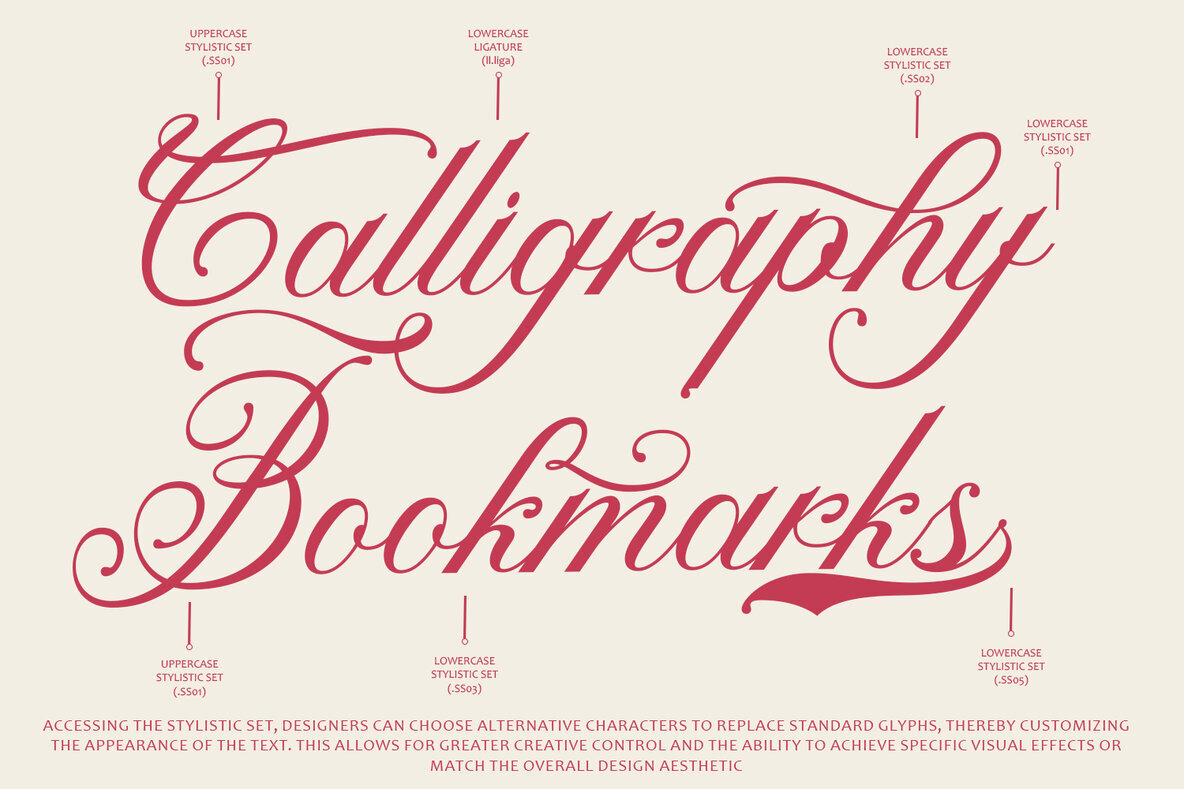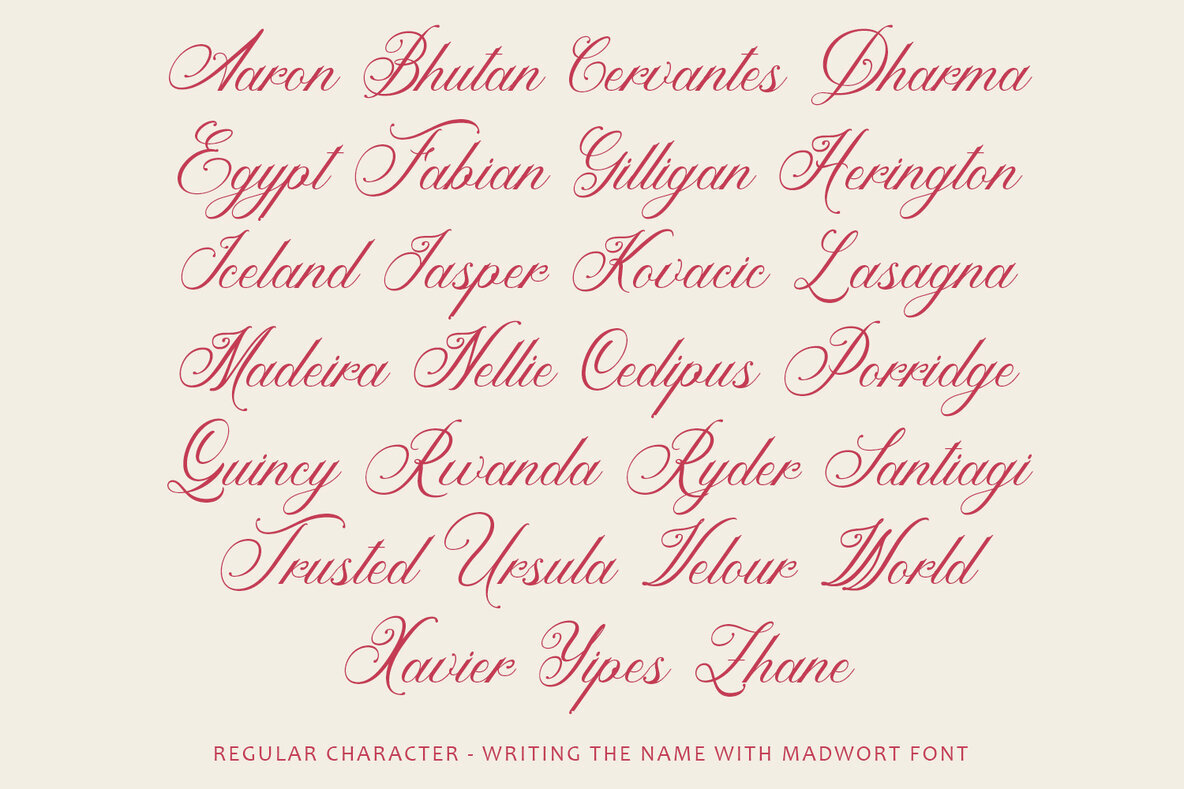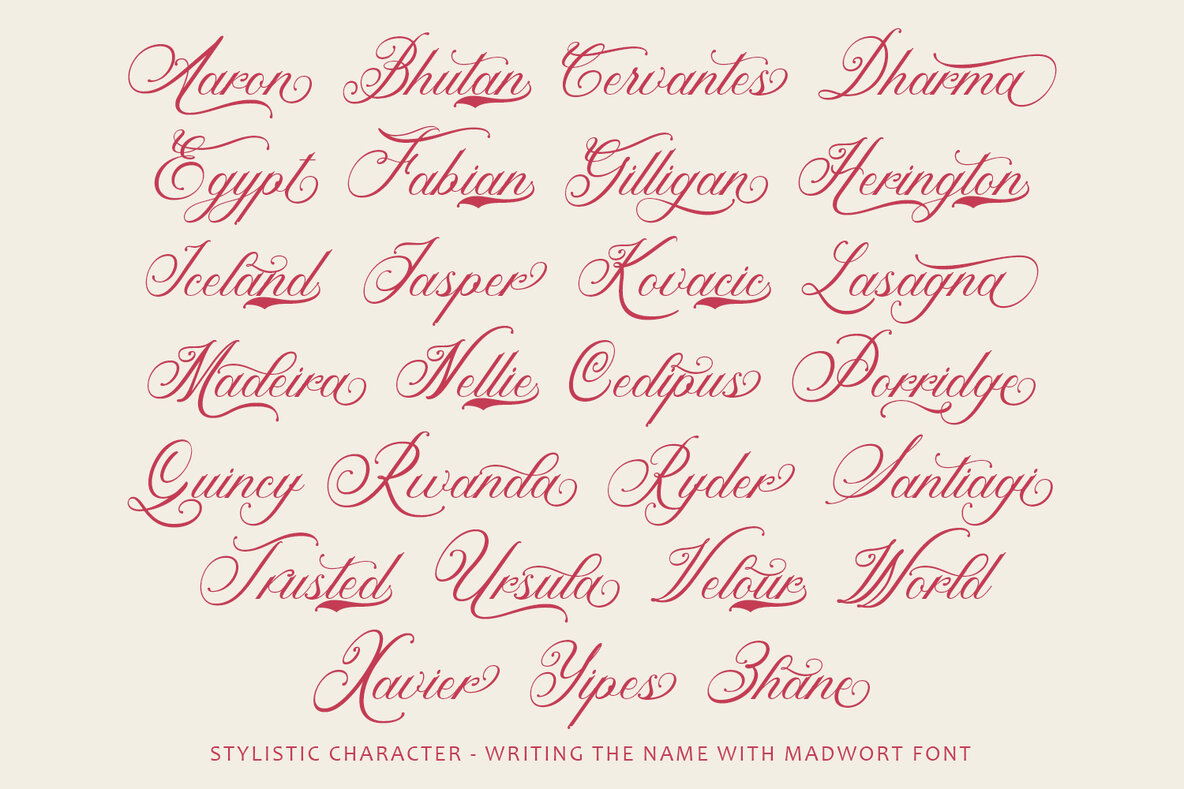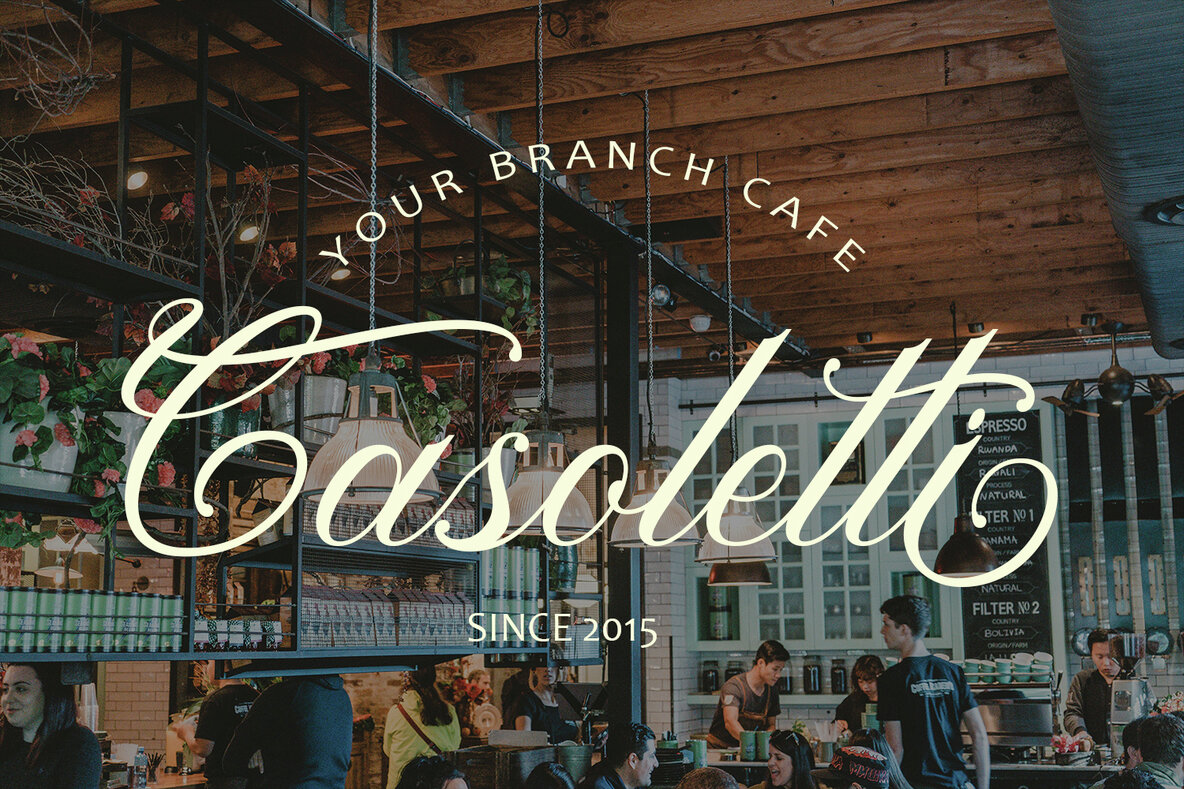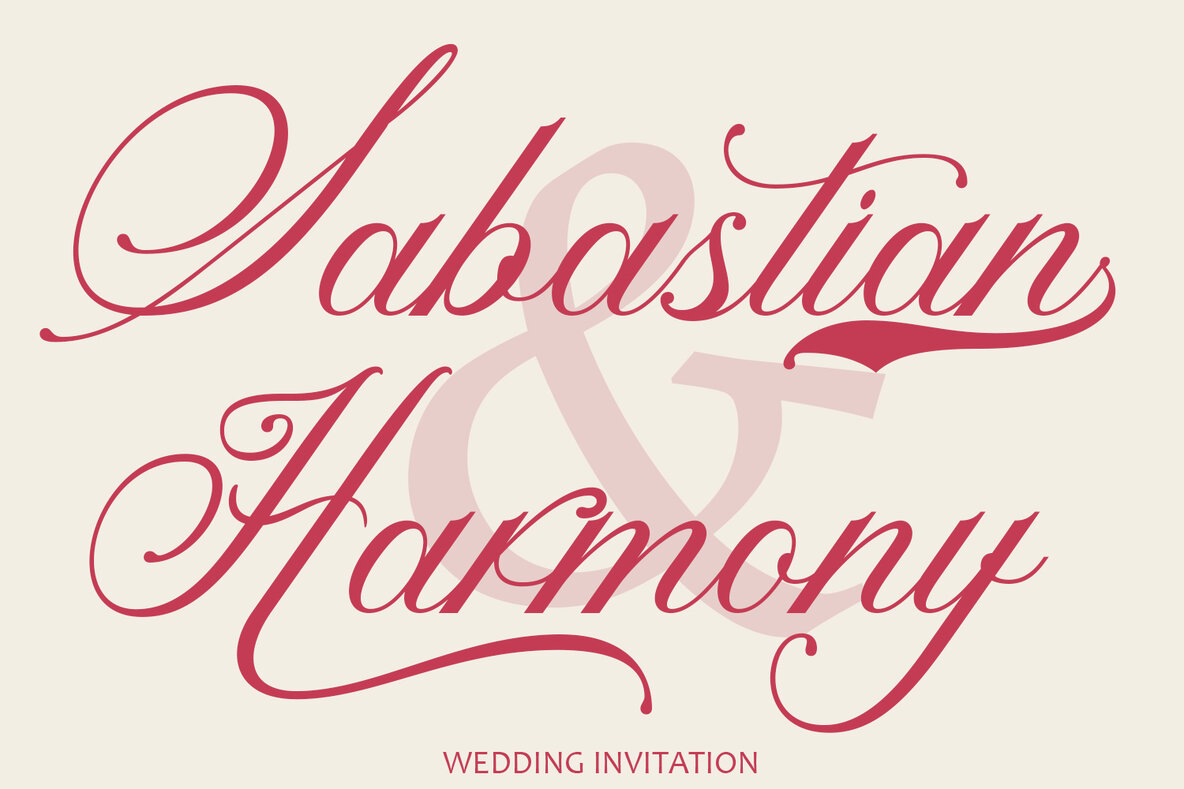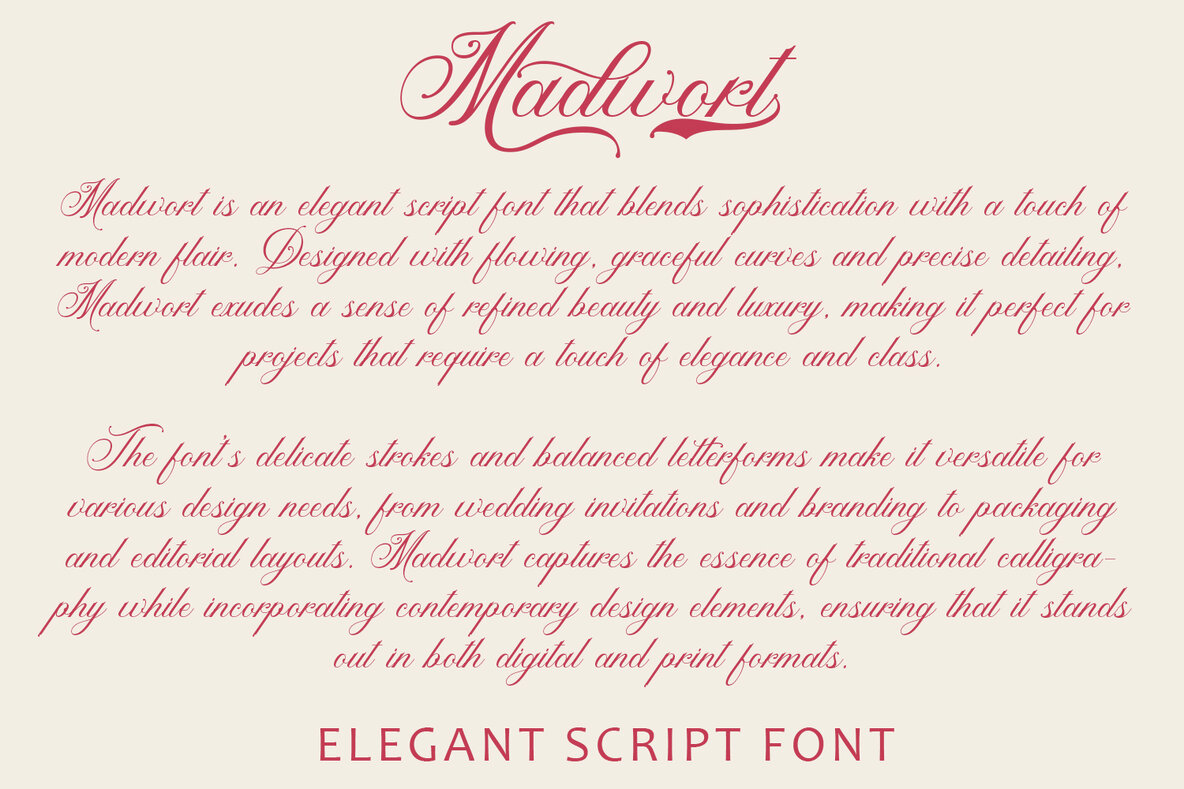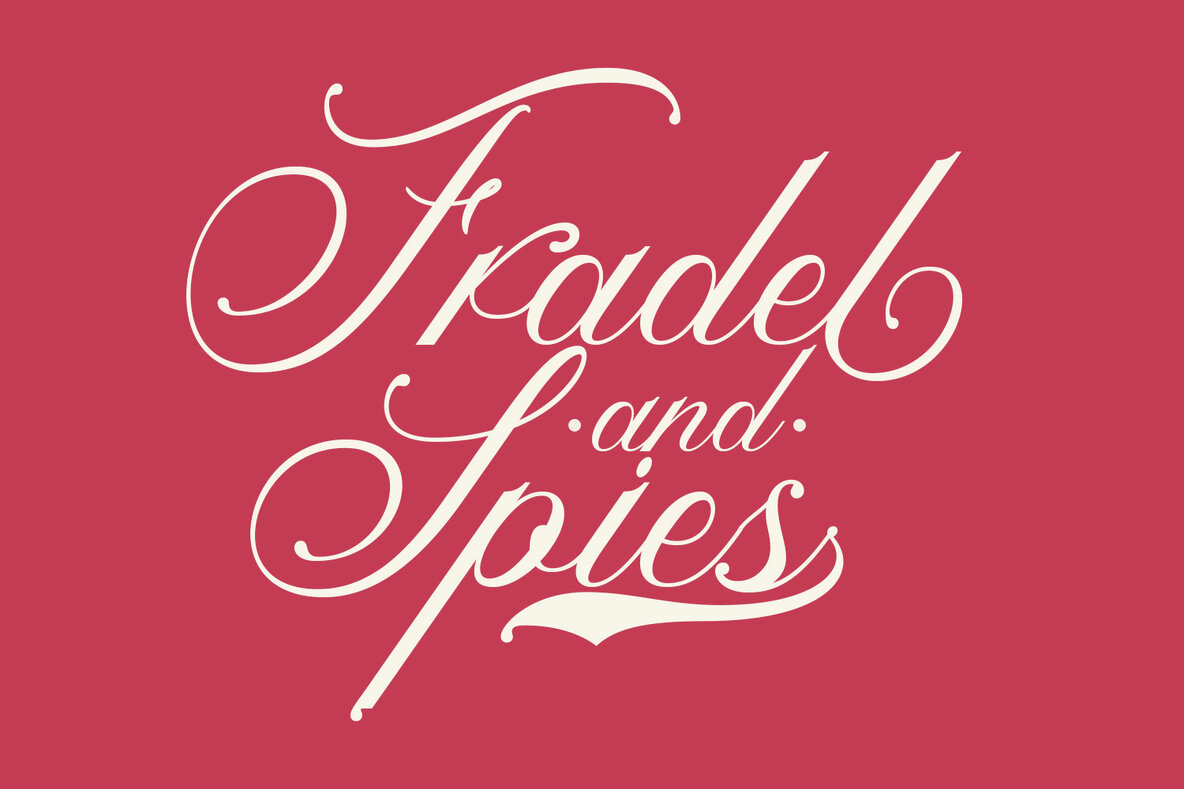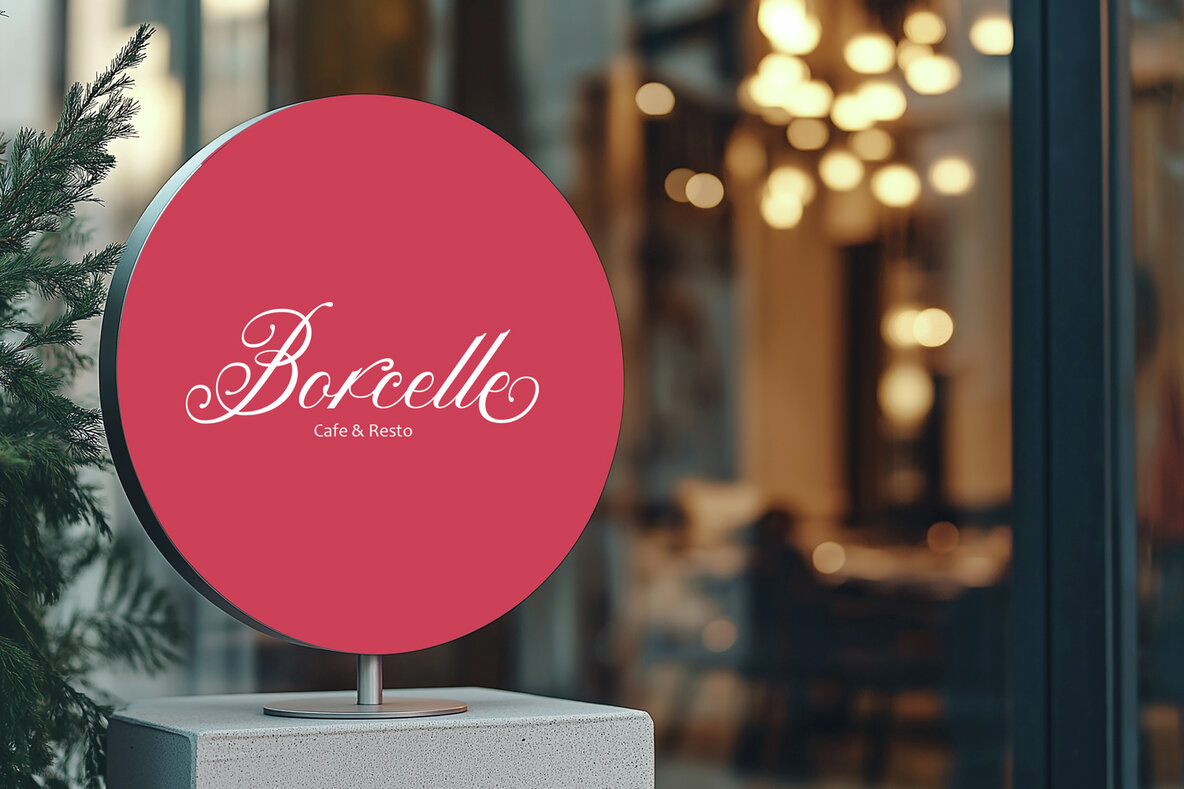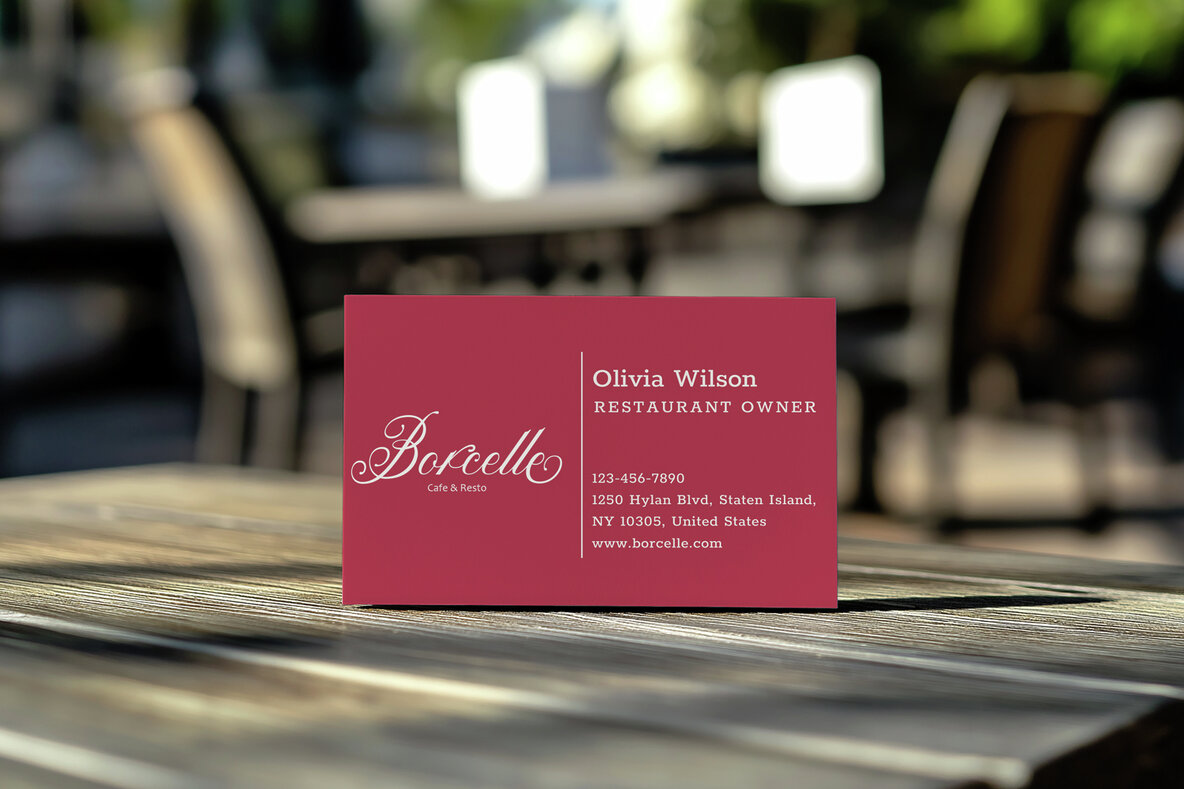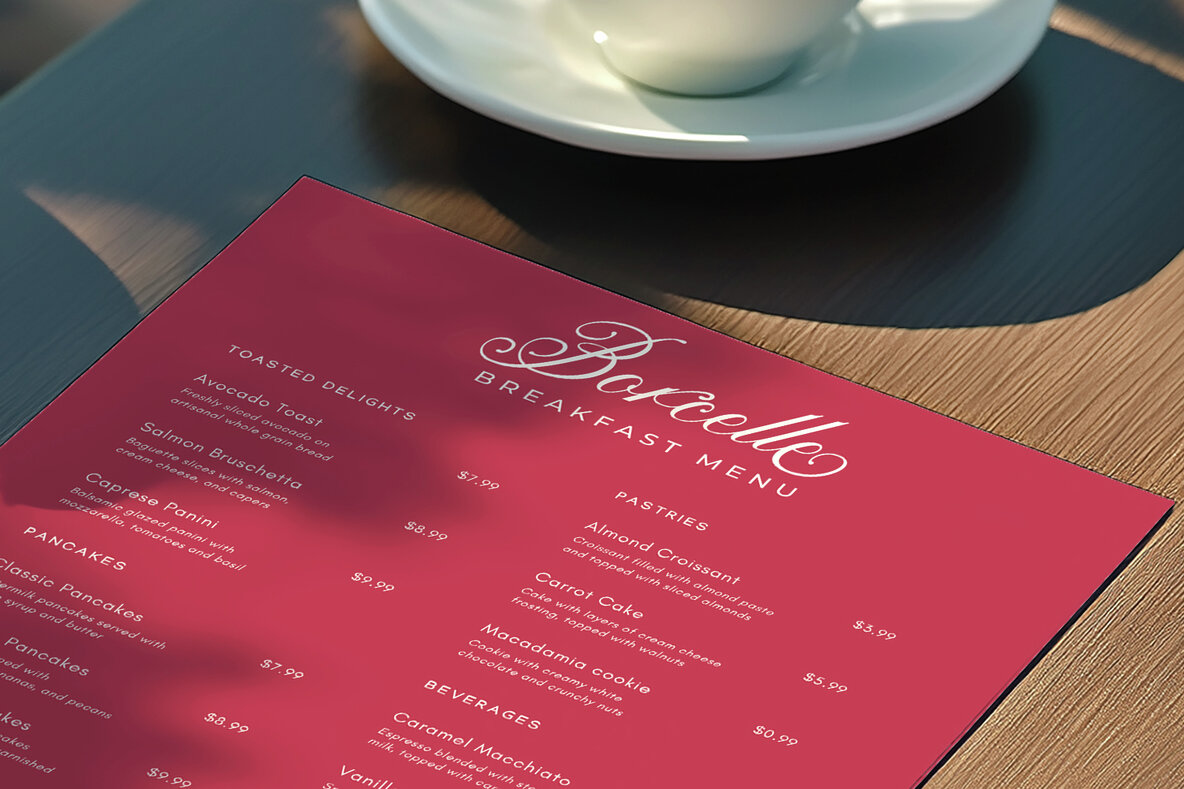
Madwort Font
Madwort
"Madwort" is an elegant script font that blends sophistication with charm, perfect for various design projects. With graceful flourishes and delicate curves, it exudes timeless sophistication, making it ideal for upscale branding, wedding invitations, and packaging. The meticulously crafted characters, loops, and swashes add a touch of class and refinement, enhancing the font's luxurious aesthetic.
Despite its formal appearance, "Madwort" is versatile and adaptable to a wide range of design contexts, from editorial layouts to product packaging and personal stationery. It ensures readability while maintaining elegance, striking a balance between style and functionality. The font's distinctive personality, marked by its graceful lines and refined look, exudes confidence and charm, making it an excellent choice for designers aiming to convey sophistication in their projects.